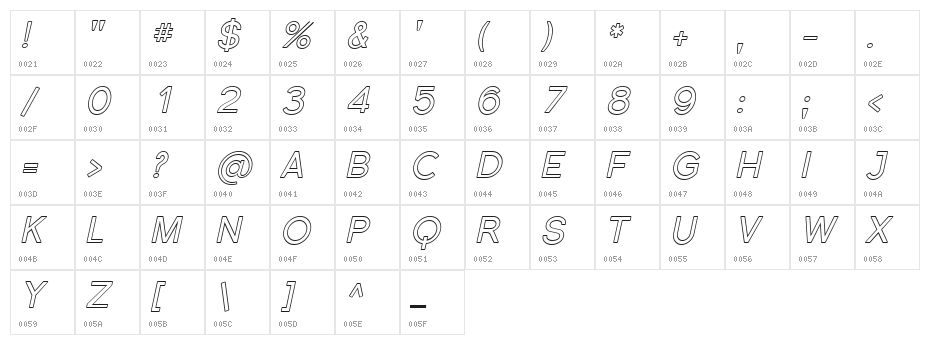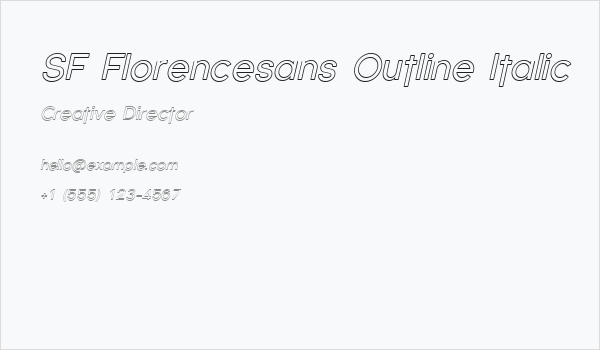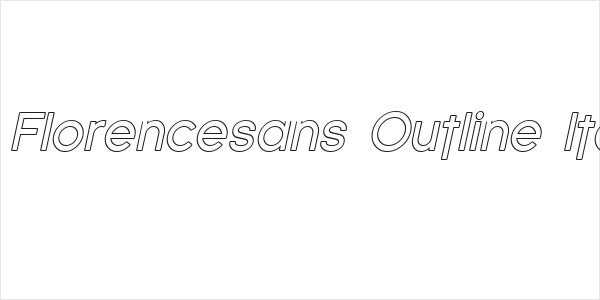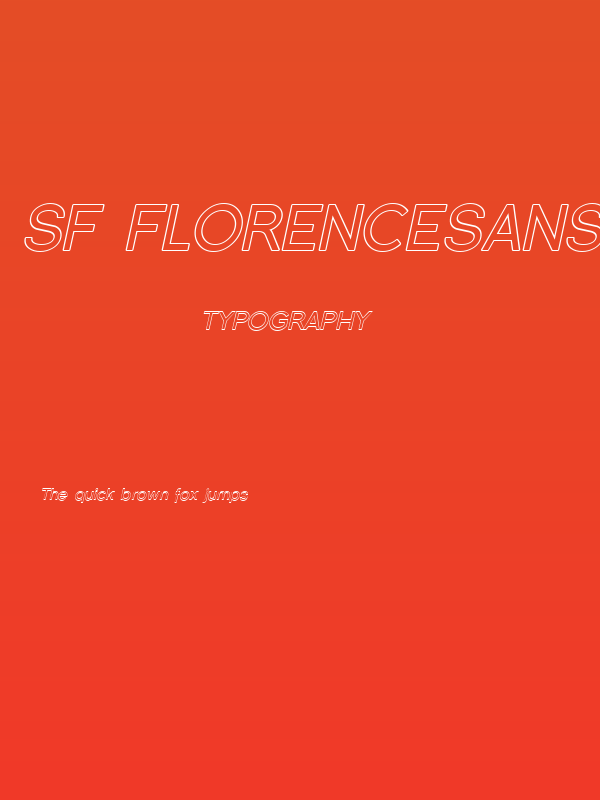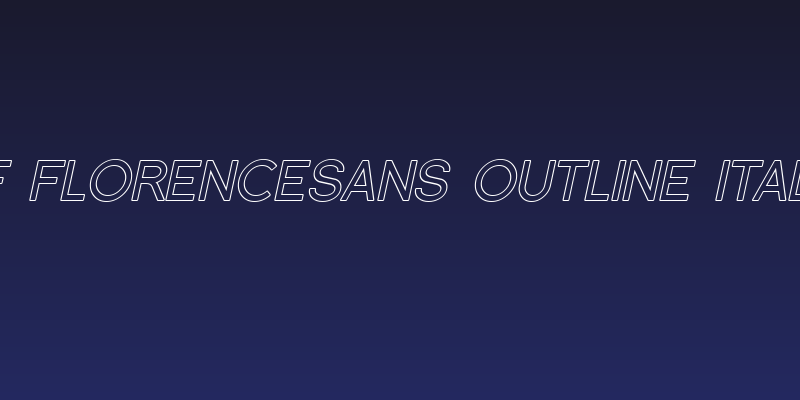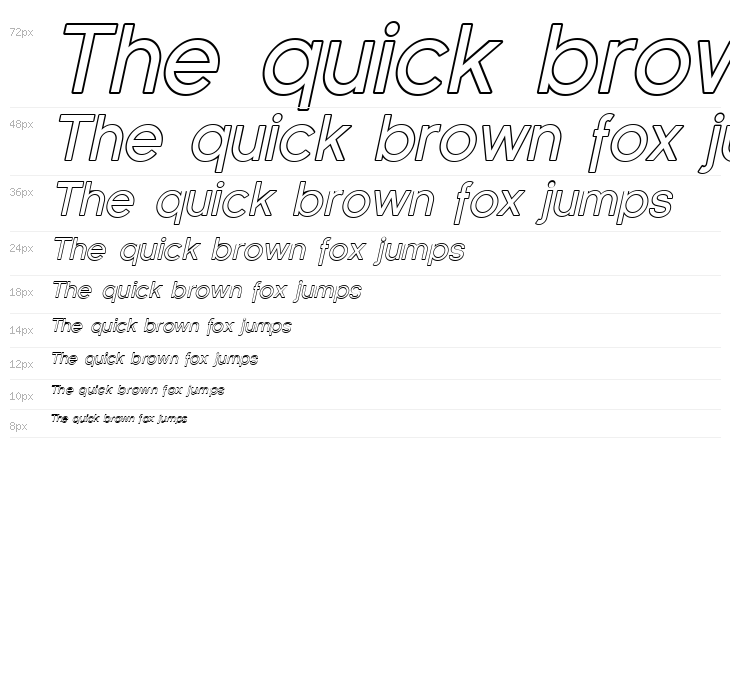
SF Florencesans Outline Italic Font
SF Florencesans Outline Italic Description
This font features a clean and modern sans-serif style with an outline effect, giving it a unique and contemporary look. The italicized form adds a dynamic and forward-leaning appearance, enhancing its visual appeal. The characters are well-proportioned, maintaining a consistent stroke width throughout, which contributes to its readability. The uppercase and lowercase letters are distinct, with a slight slant that emphasizes the italic nature. Numbers and special characters are designed to match the overall aesthetic, ensuring a cohesive look across all text elements.
| Use Case | Headlines, Logos, Display text |
| Proposed Projects | Ideal for branding, advertising, and modern web design projects where a contemporary and stylish look is desired. |